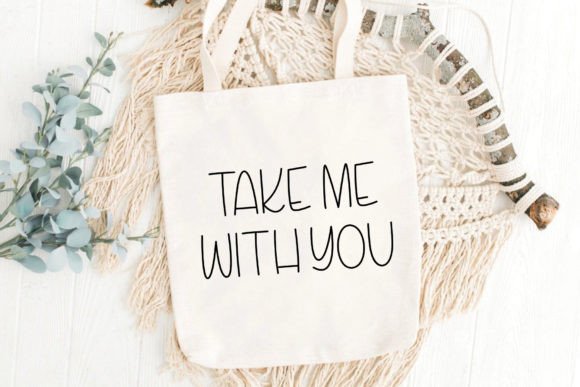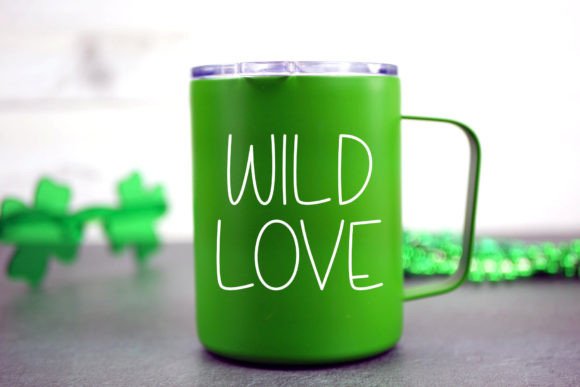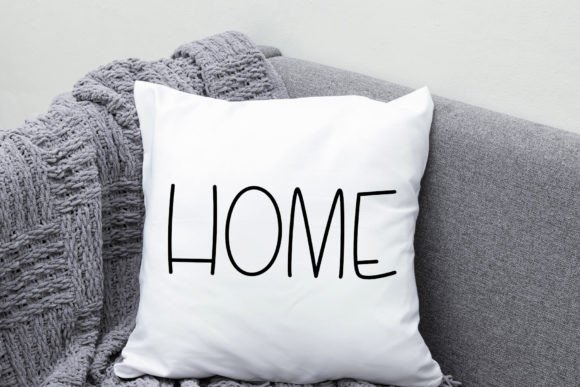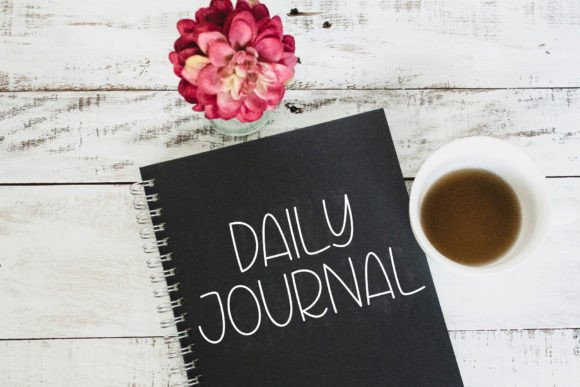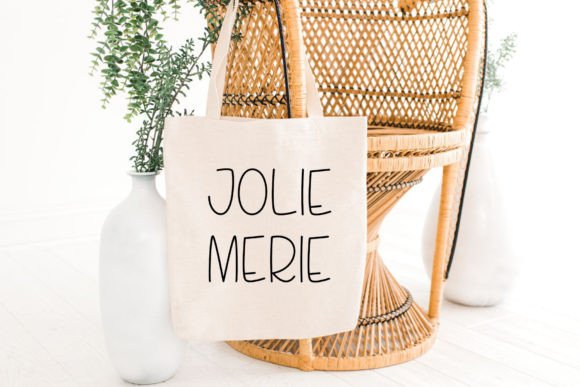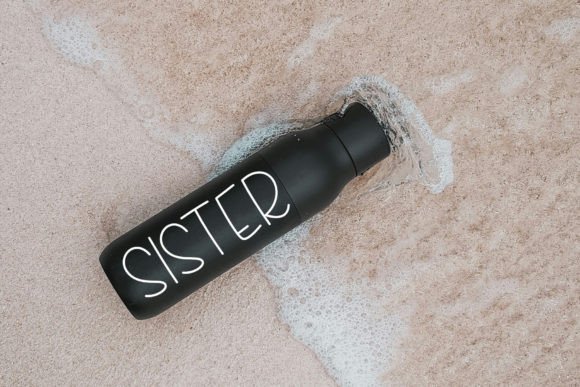
Introduction to Microwave Font Font
Fonts play a crucial role in design, and the Microwave Font font is a typeface that brings both character and versatility to any project. Whether you’re working on a branding project, a website, or a print design, the Microwave Font font offers a unique style that can elevate your work.
Introducing the Microwave Font – a tall and slender typeface radiating cuteness in every letter.
This font is your go-to choice for farmhouse-inspired designs, Cricut projects, SVG files, mugs, shirts, and beyond Elevate your Cricut projects with Microwave Font.
Key Features of Microwave Font Font
Why Choose Microwave Font Font?
The Microwave Font font is more than just a typeface – it’s a design tool that helps you communicate your message with style and clarity. Its unique character set and versatile design make it suitable for a wide range of applications, from elegant invitations to bold headlines.
With its carefully crafted letterforms and balanced proportions, the Microwave Font font ensures readability and visual appeal across all mediums.
What makes Microwave Font font special?
The Microwave Font font stands out with its unique design, exceptional readability, and versatility across various design applications.